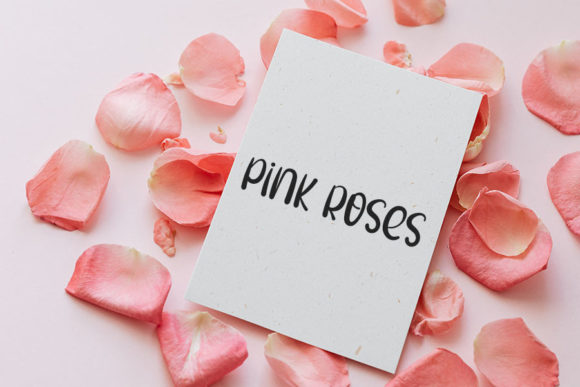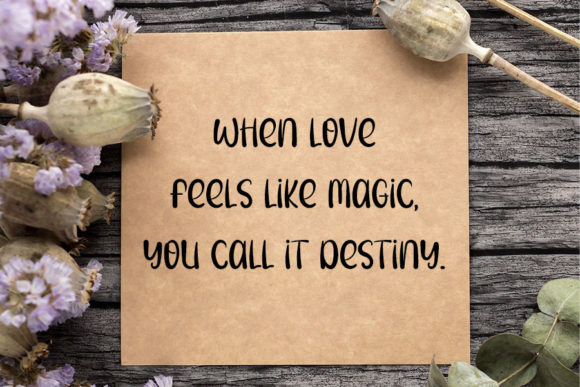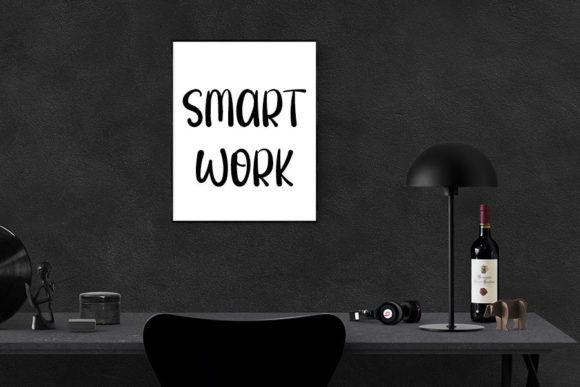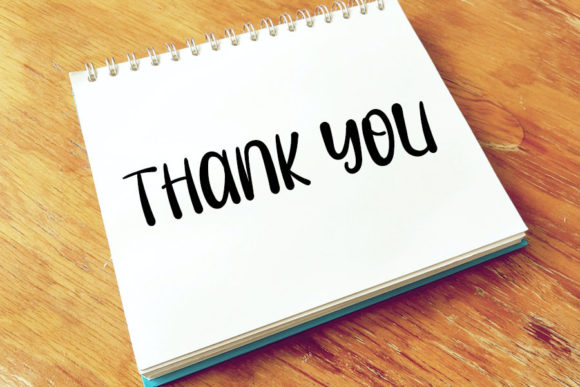
Sparkling Font
About Sparkling Font
Sparkling is a lovely and delicate script handwritten font that exudes elegance and class. This font was particularly crafted for those who need a beautiful and refreshing look to their designs.